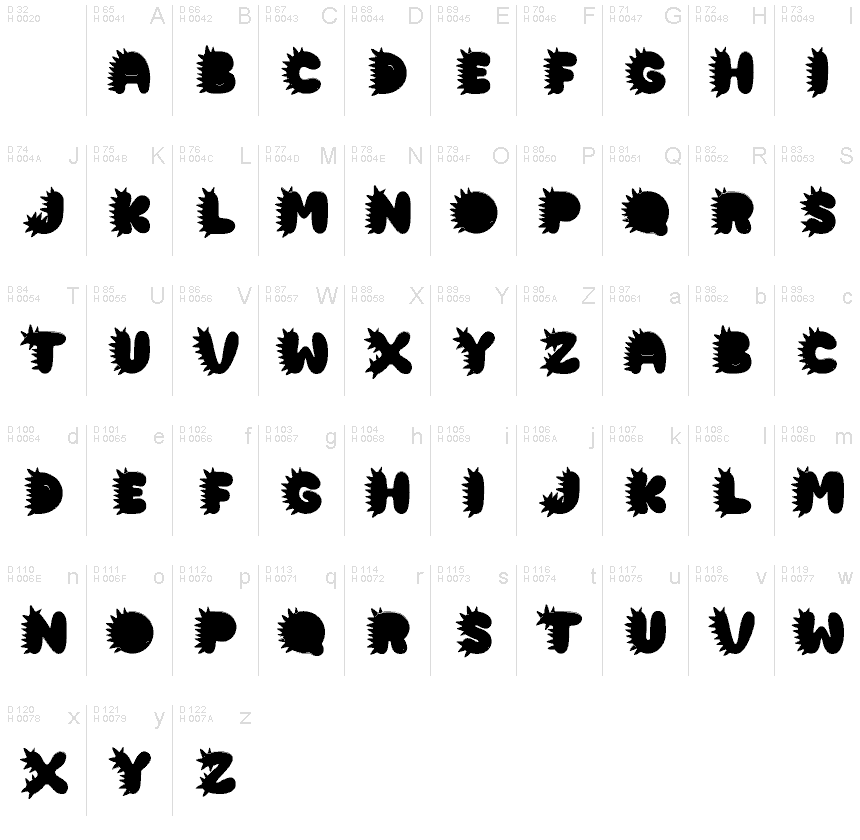
BubbleGum Dino Alphabet
Bubble Gum Dino Alphabet font designed by Kong Font features smooth, irregular silhouettes whose jagged embellishments are perfectly placed at unusual parts of each letter. The decorative nature raises its whimsical aura, and its bold structure naturally leaves a solid impression while tuning it along with the playful tone.
The display font is particularly interesting for kid-related designs that include storybooks, T-shirt prints, school notebooks covers, coloring books, or video games. Other use cases can be birthday invitations, gift cards, pins and badges graphics , candy packaging , comics headers , toys boxes in store shelves and more.